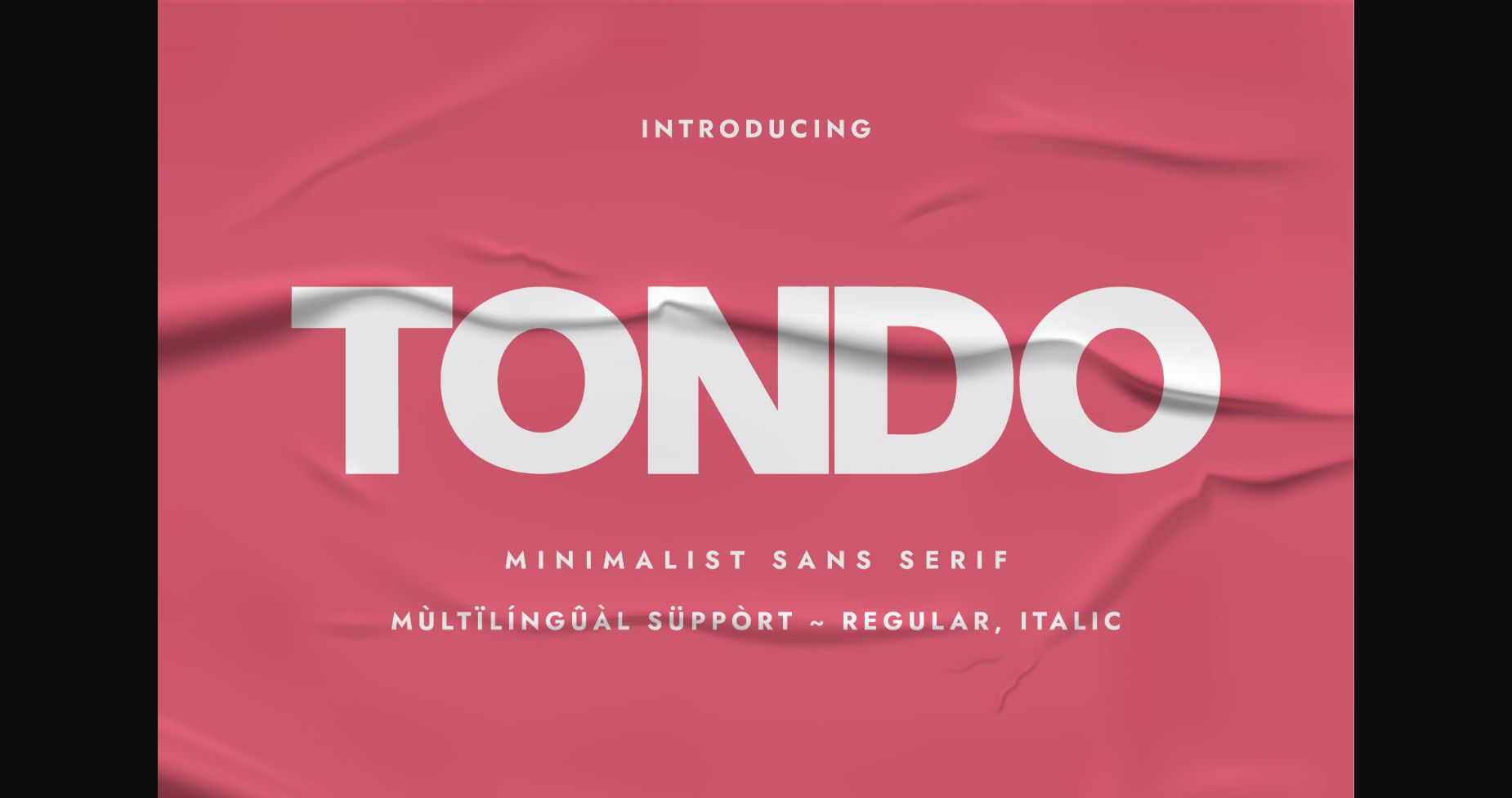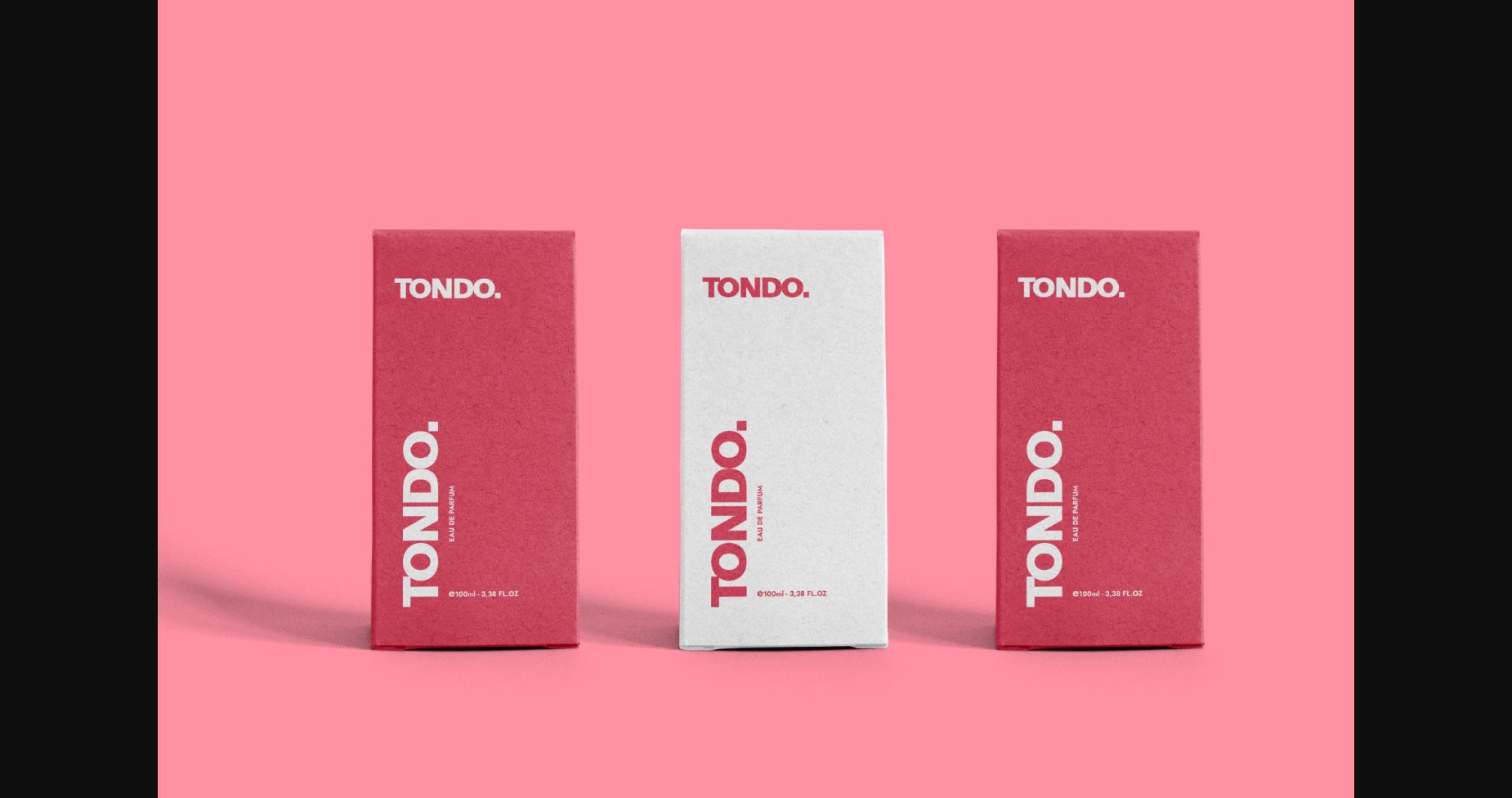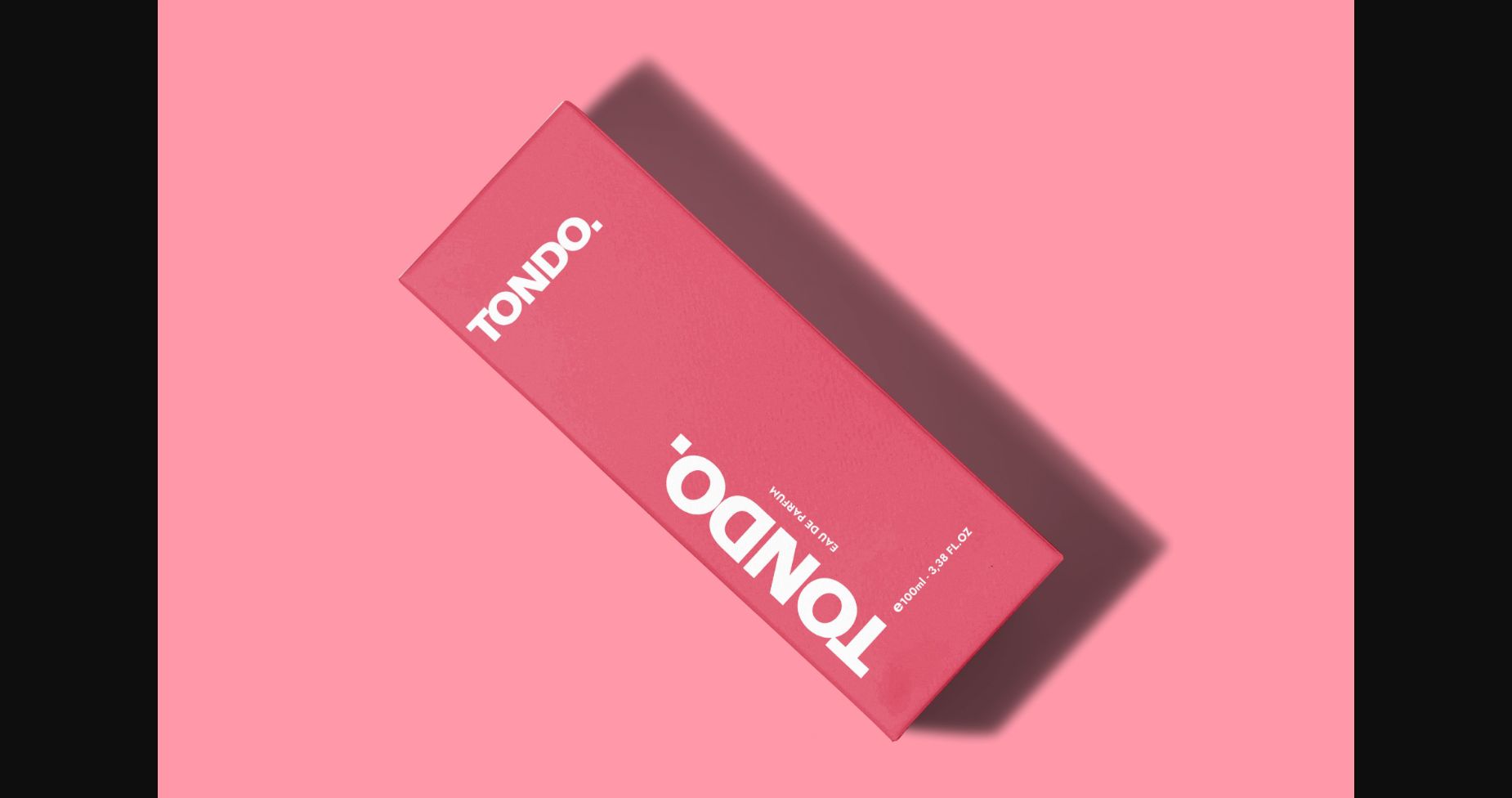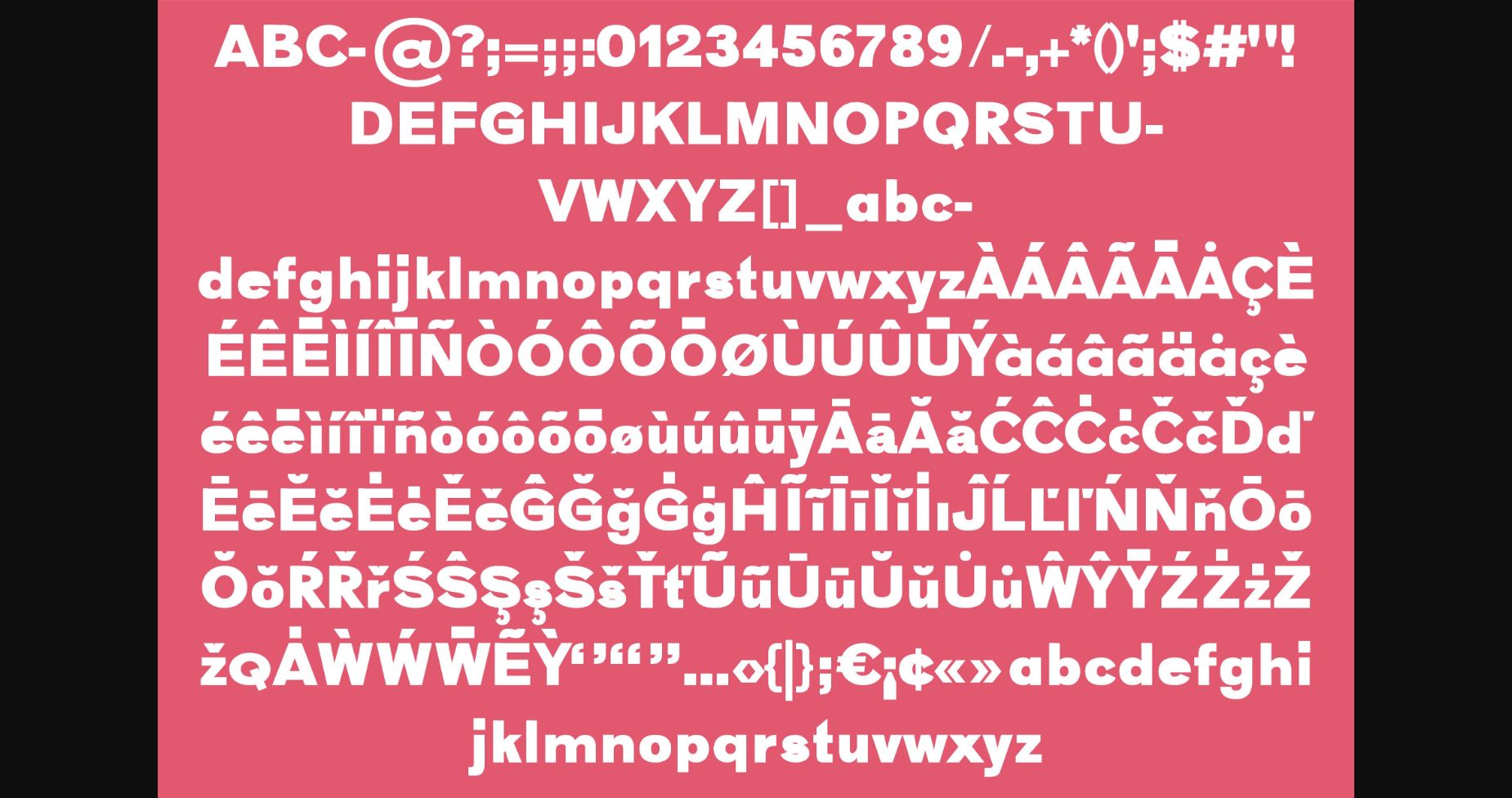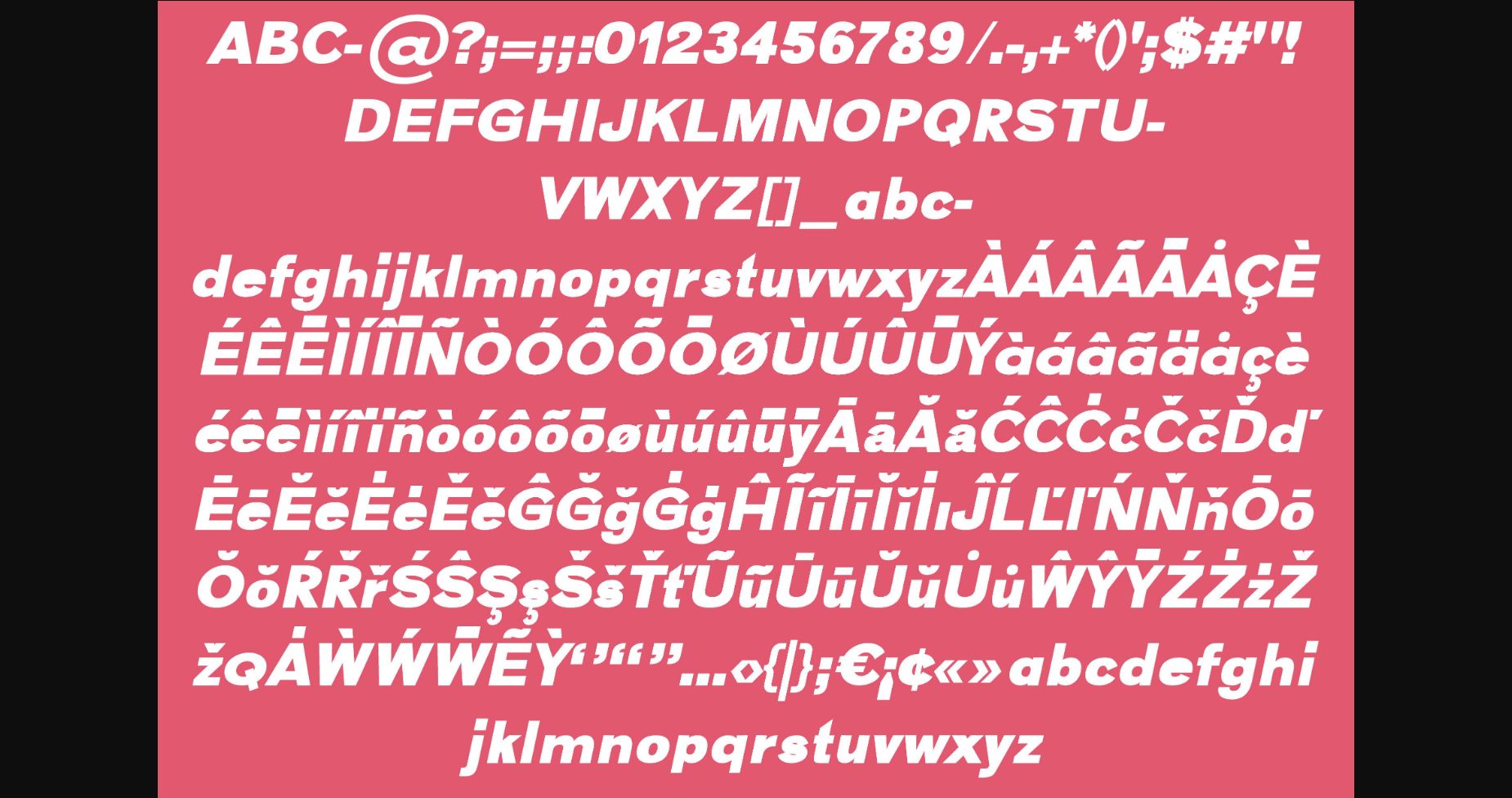
About Tondo Font
Tondo is a bold sans serif font perfect for packaging, logo design, branding, crafting, web design, and many more. Use Tondo in your creations, and you will notice how it is able to effortlessly make them stand out.